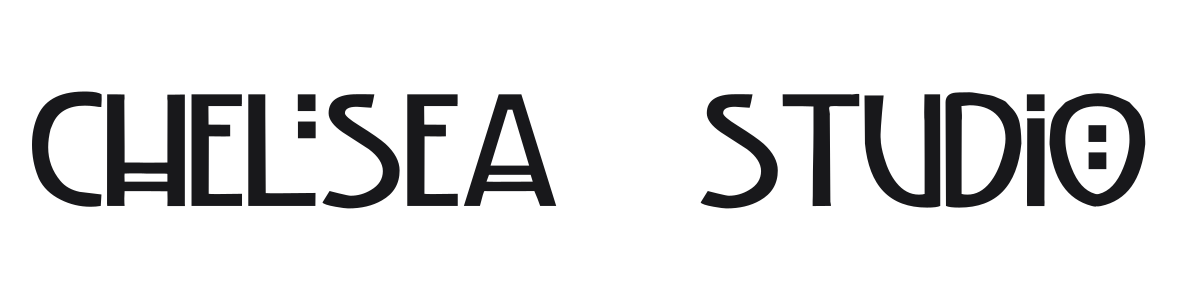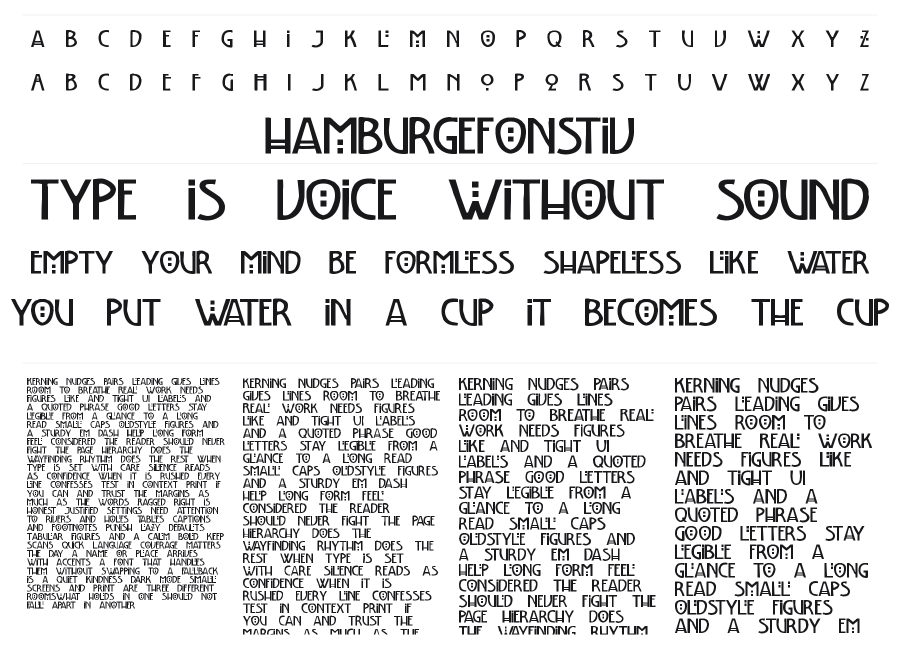
Chelsea Studio
Chelsea Studio is a bold Art Deco display font from Scriptorium, built on geometric construction with strong stroke contrast and ornamental detailing baked into the letterforms. Horizontal cuts through crossbars and inset circular accents give it the feel of architectural signage or a 1930s cinema marquee. It reads instantly as period-specific, which makes it useful when authenticity to that era matters.